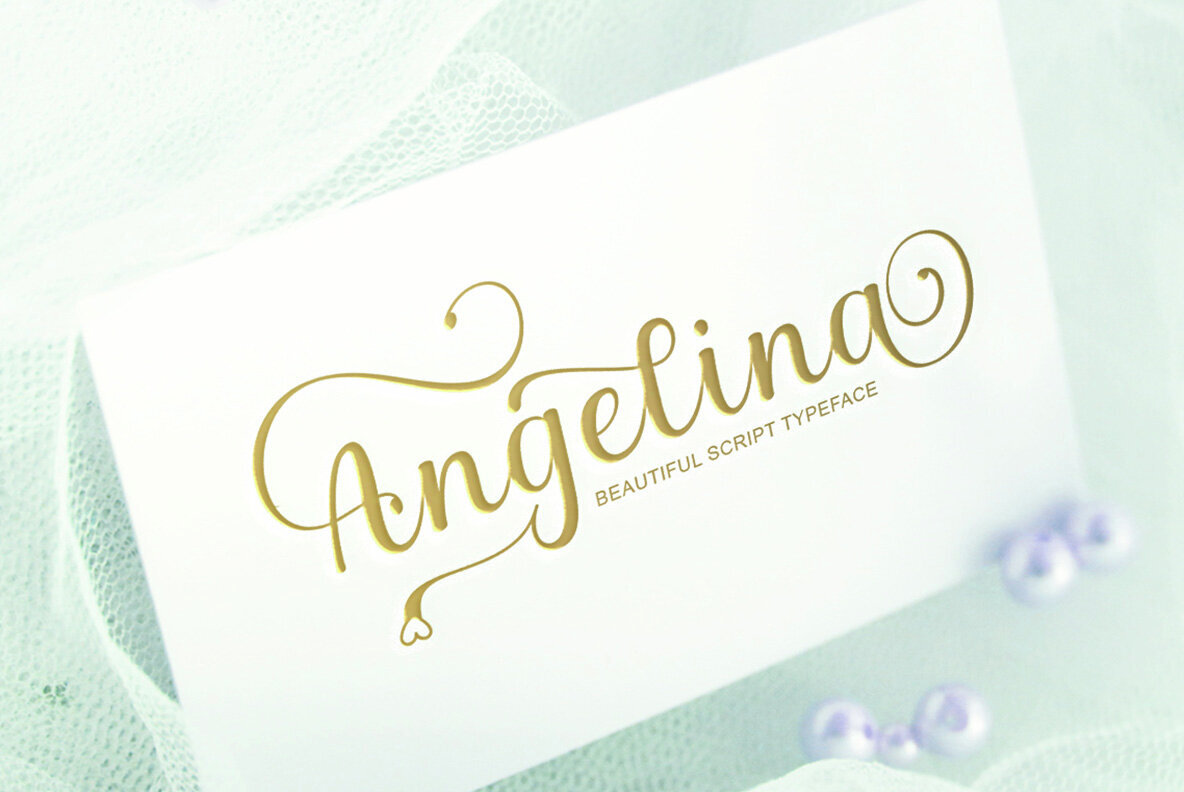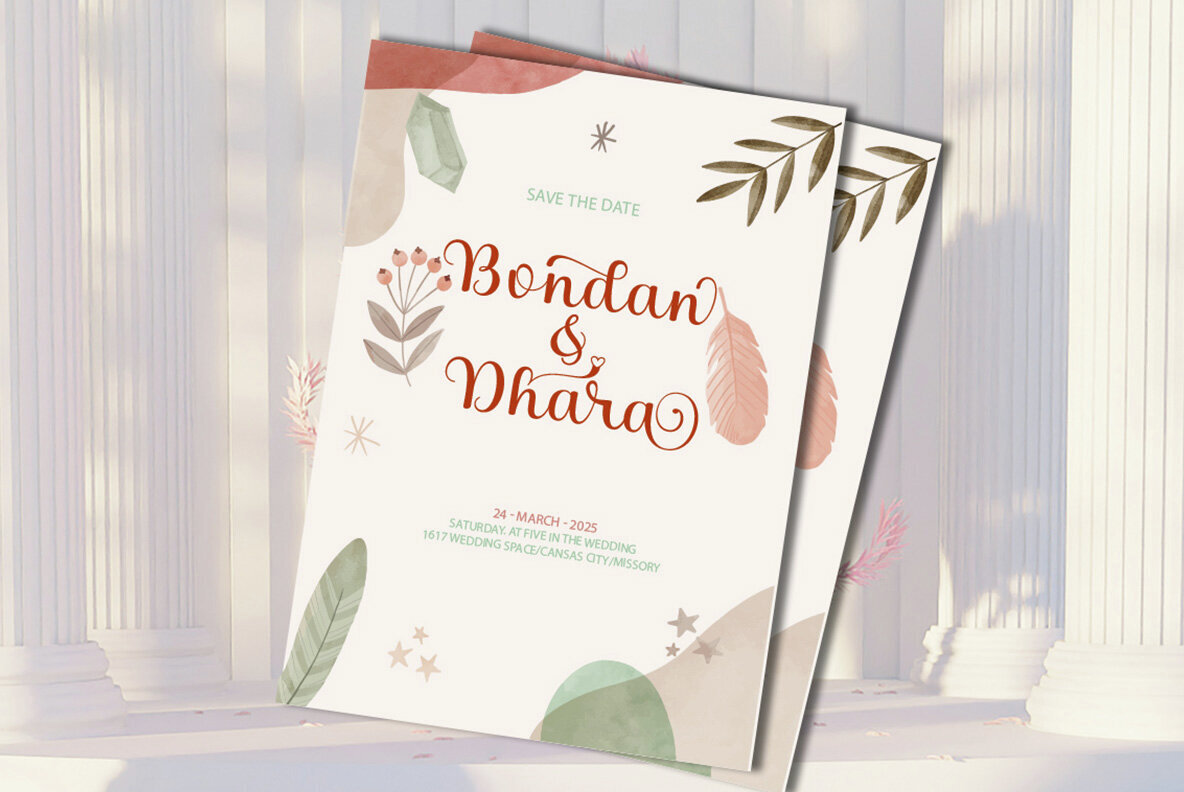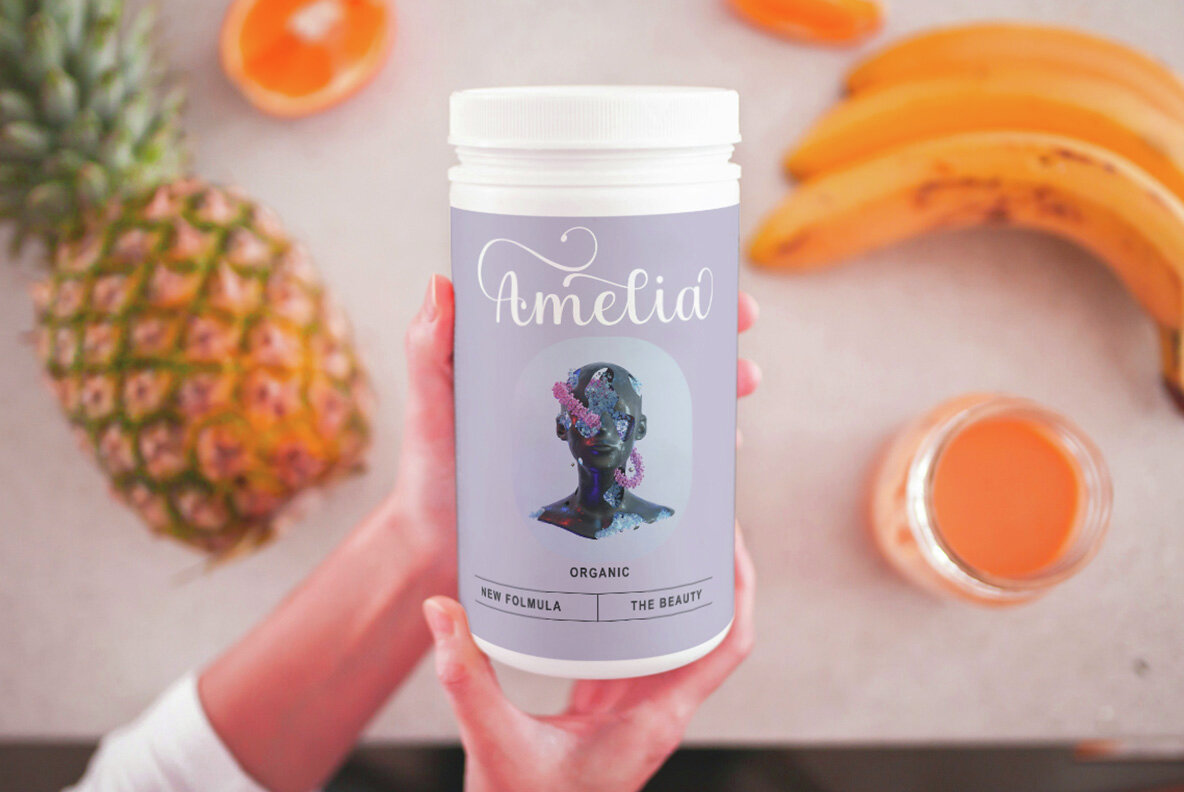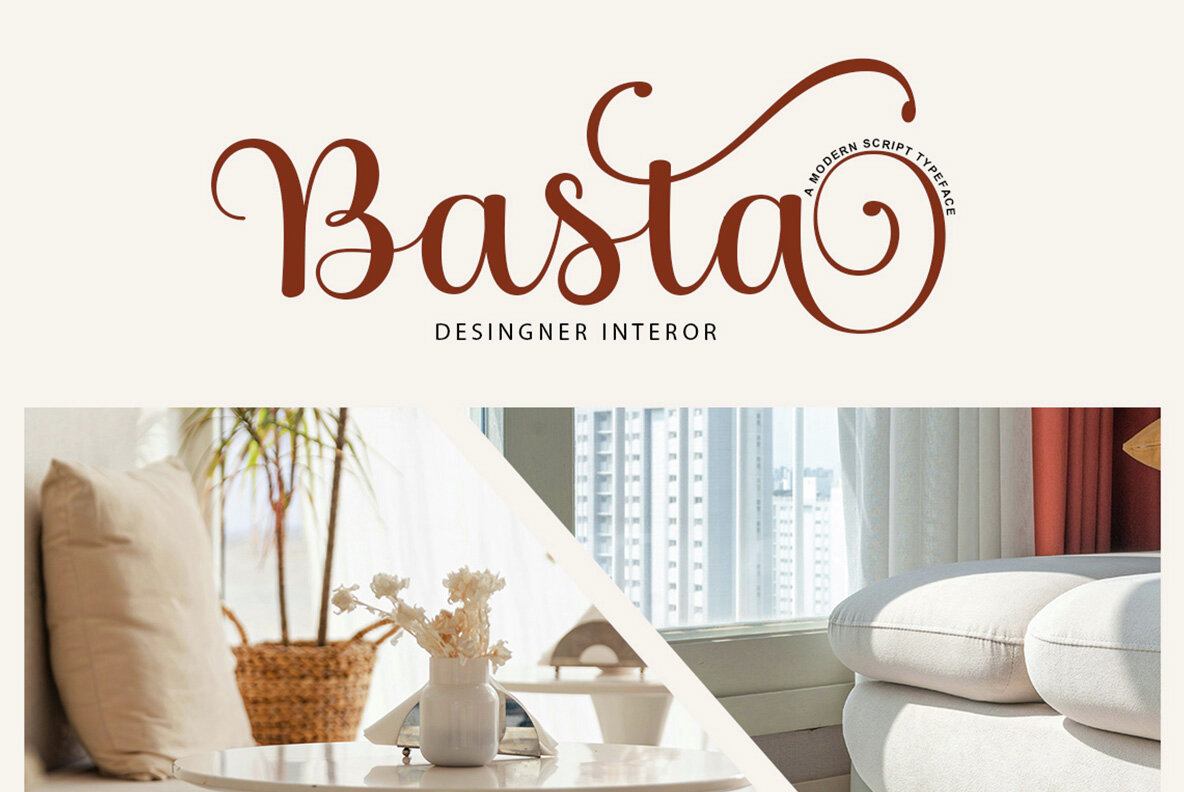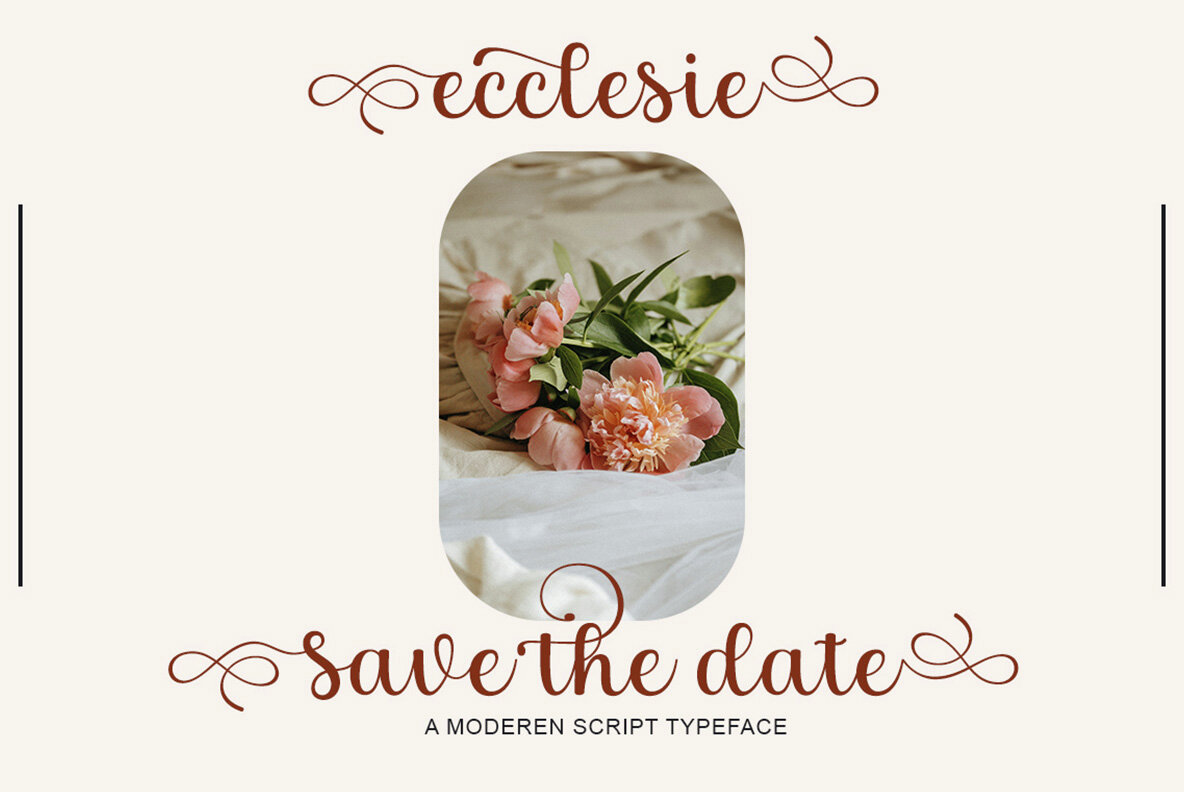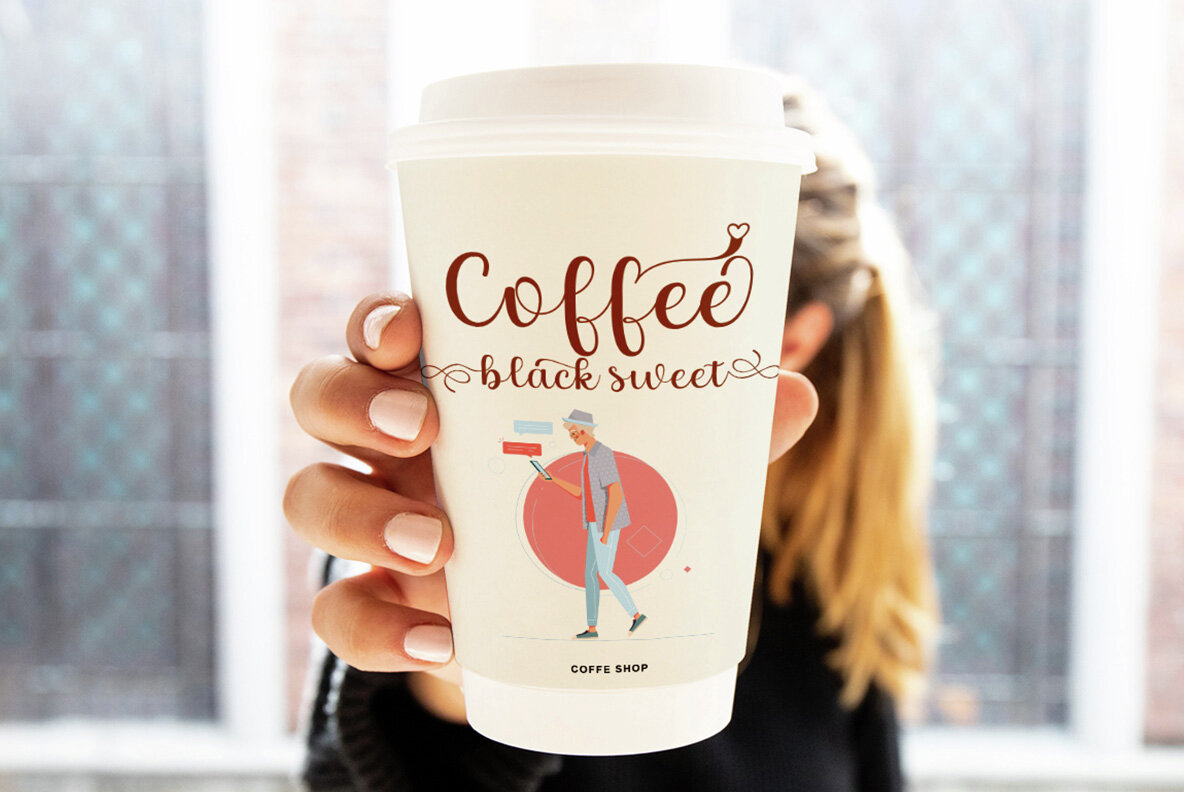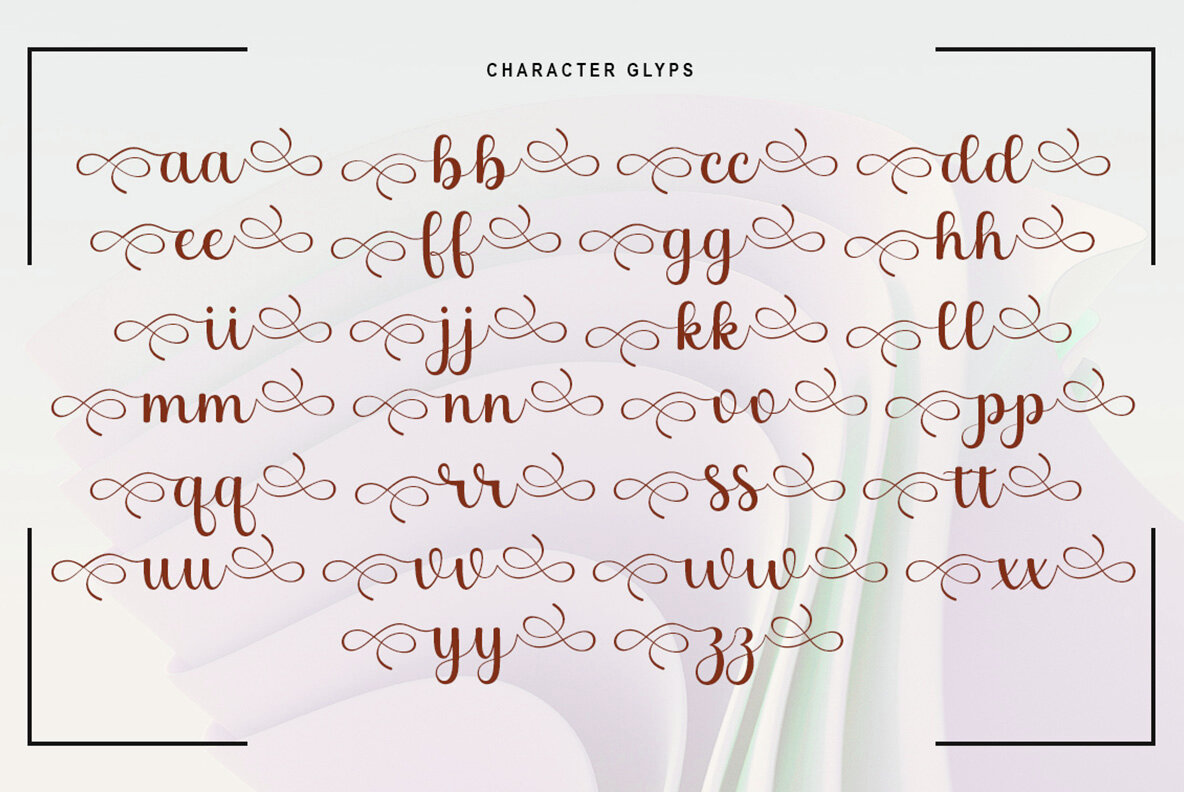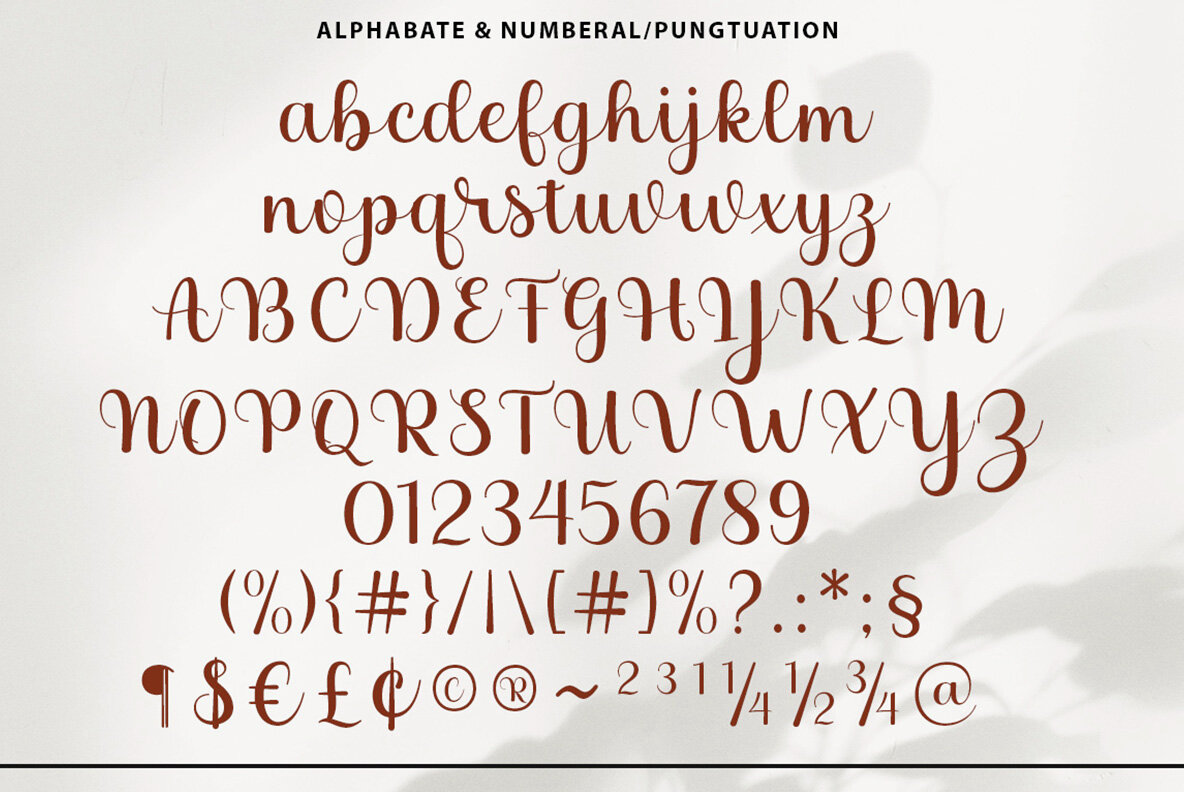
Megoha Font
Megoha Regular
Megoha is an elegant, flowing script font that adds a modern touch to any design project. Its smooth and curved letterforms create a dynamic and sophisticated feel, making it ideal for branding, invitations, posters, and social media. Carefully crafted with readability in mind, Megoha maintains a balance between style and functionality, ensuring your designs are both attractive and clear.
This versatile script font features a variety of ligatures and alternate characters, offering creative flexibility for composing visually stunning text. Whether you're designing sophisticated invitations or eye-catching posters, Megoha provides the tools needed to achieve a refined and polished look.